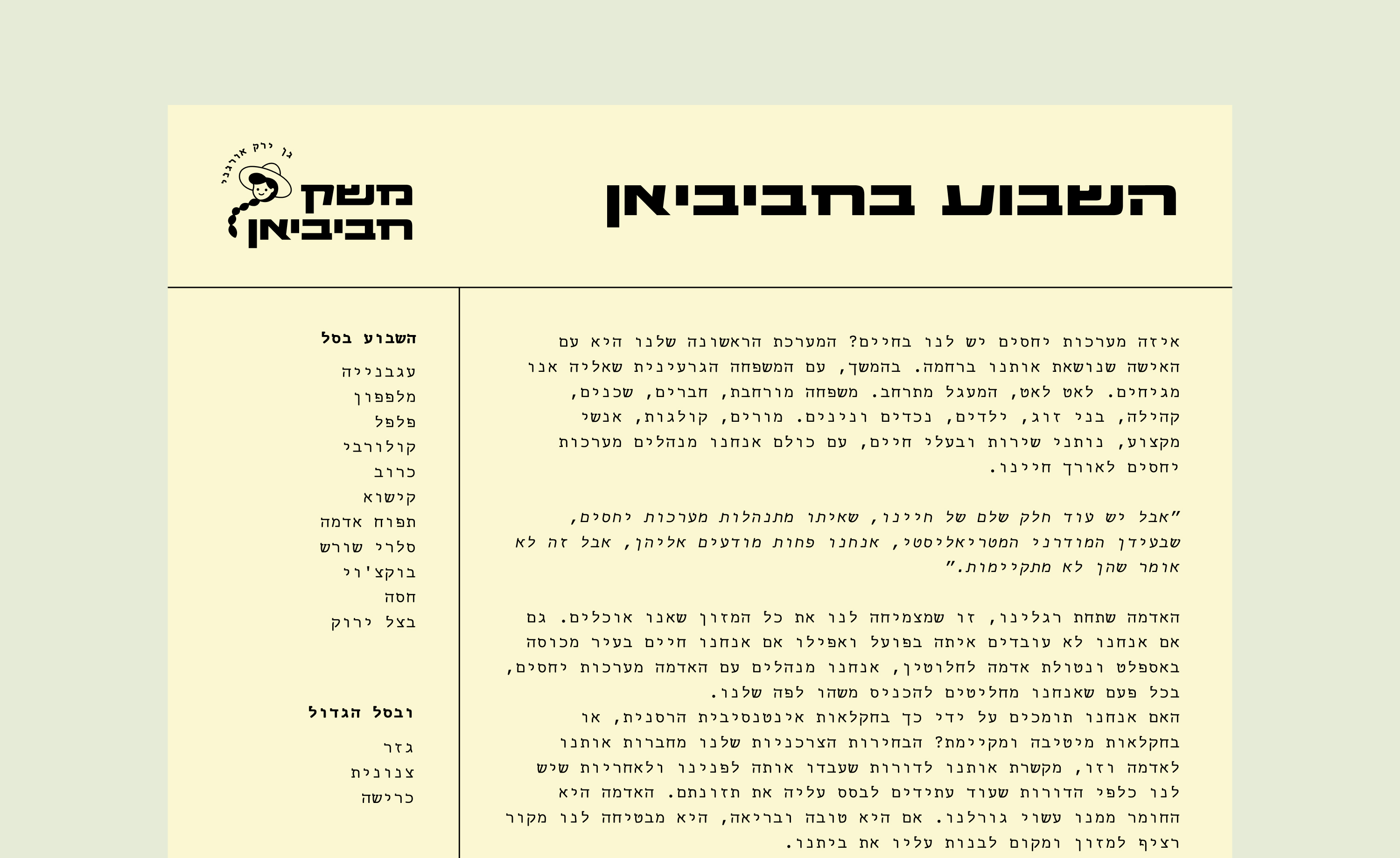
Kaldanit was born within the Havivian project, a community-supported organic farm that needed a space blending magazine, shop, and Michal's recipes. I imagined a quiet presence behind the keyboard, writing about fields, markets, and people. Instead of Courier New, I searched for a warmer, mono-linear, mechanical voice. Drawing from Hebrew typewriter references, including an old FrankRuehl variant, and revisiting sketches I had kept for years, I shaped a typeface that belongs equally to kitchen and office, speaking softly from behind the keys.
קלדנית: a monospaced typeface for Havivian
A Slab Serif, mono-linear, mechanic typeface to convey a warm, naïve, and traditional feel – a typeface that seems as though it has always existed, even though it's new.